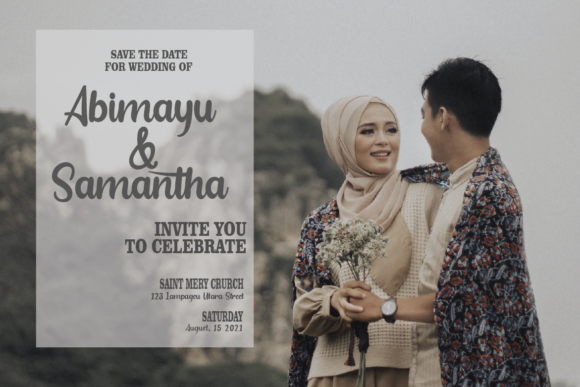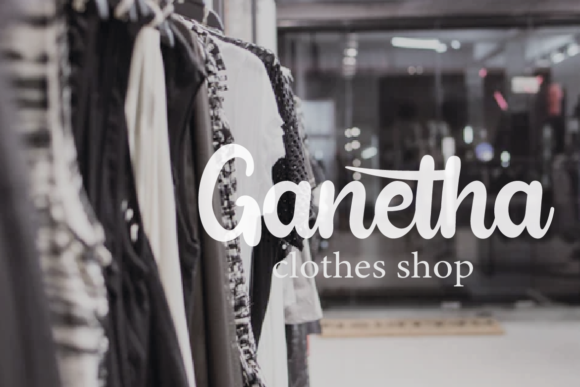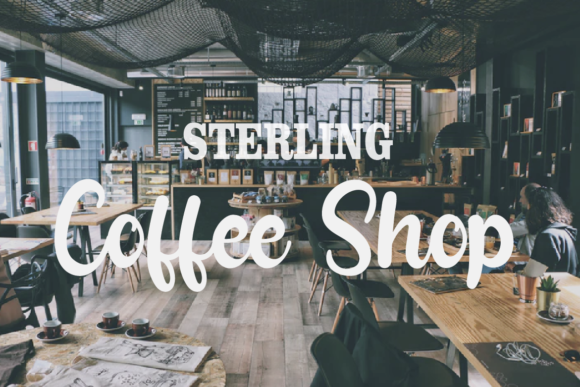
Introduction to Limpet Font
Have you ever stumbled upon a font that makes your creative heart skip a beat? For many designers, this moment of inspiration is what drives them to bring their ideas to life. It’s the moment when you know you’ve found the perfect design resource to elevate your project. For us, that moment came when we discovered the Limpet Font – a stunning, bold, and flowing script font that’s perfect for any creative project.
Whether you’re designing a wedding invitation, creating social media posts, or crafting beautiful stationery art, the Limpet Font is an excellent choice. Its versatility and high-quality design make it a valuable asset for designers looking to add a touch of elegance to their work. And the best part? It’s available for free download, making it an accessible design resource for creatives of all levels.
Key Features of Limpet Font
- High-quality, professional font design suitable for creative projects.
- Unique, modern design aesthetic that adds a touch of sophistication to any creative project.
- Perfect for use in digital designs, such as logos, icons, and graphics, due to its crisp and clear typography.
Honest Review: Limpet Font
One of the standout features of the Limpet Font is its transparent background. This allows designers to easily integrate the font into creative projects with complex backgrounds, adding a touch of sophistication and style.
Here are some of the things that work well with the Limpet Font:
- ✨ Unique and modern design
- ✨ High quality typography
- ✨ Versatile and easy to use
However, there are a few limitations to be aware of:
- ⚠️ Limited character set (no Cyrillic or Greek characters)
- ⚠️ Not suitable for body text (best used for titles and headings)
Overall, I’m impressed with the Limpet Font and would definitely recommend it as a design resource for any creative project. It’s a great addition to any designer’s toolkit, especially for those working on high-end or professional projects.
The Limpet Font is ideal for a variety of creative projects, including logos, business cards, and marketing materials. Its high-quality design and transparent background make it a versatile and effective design resource.